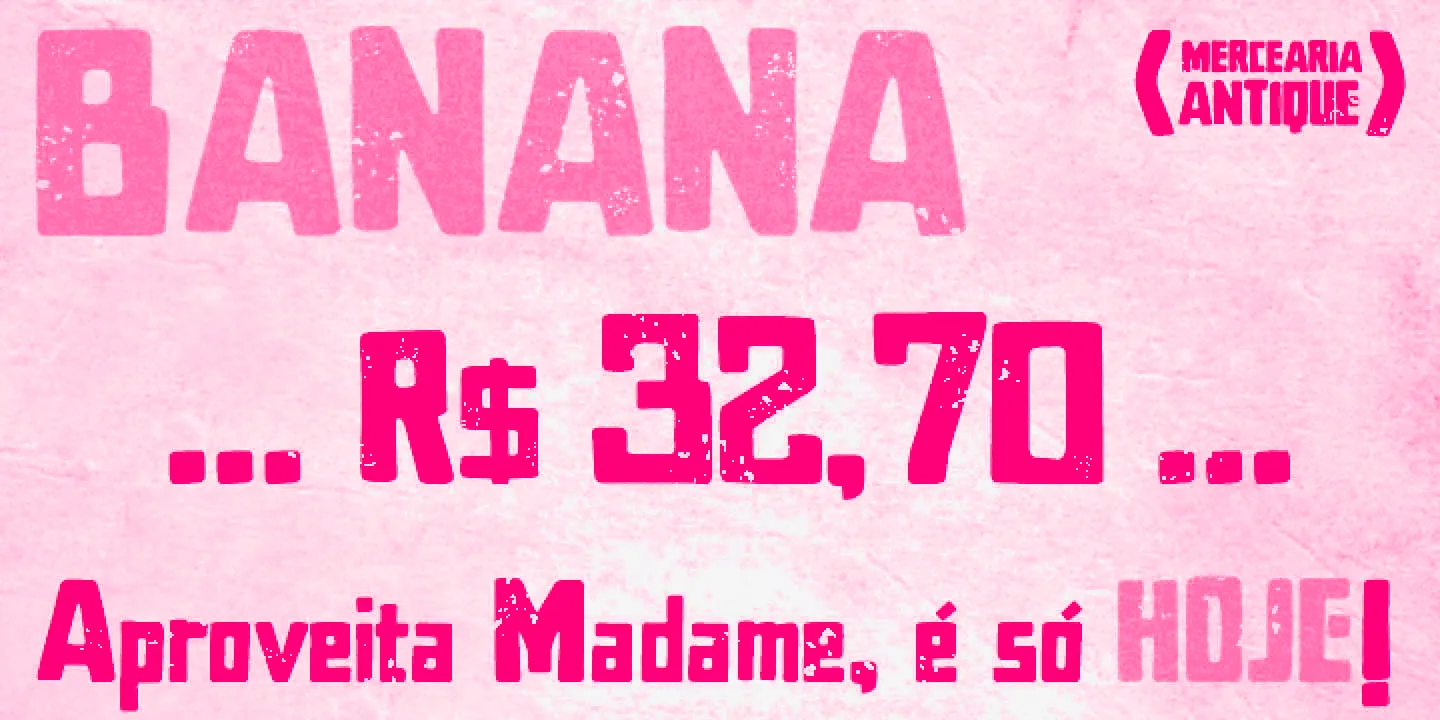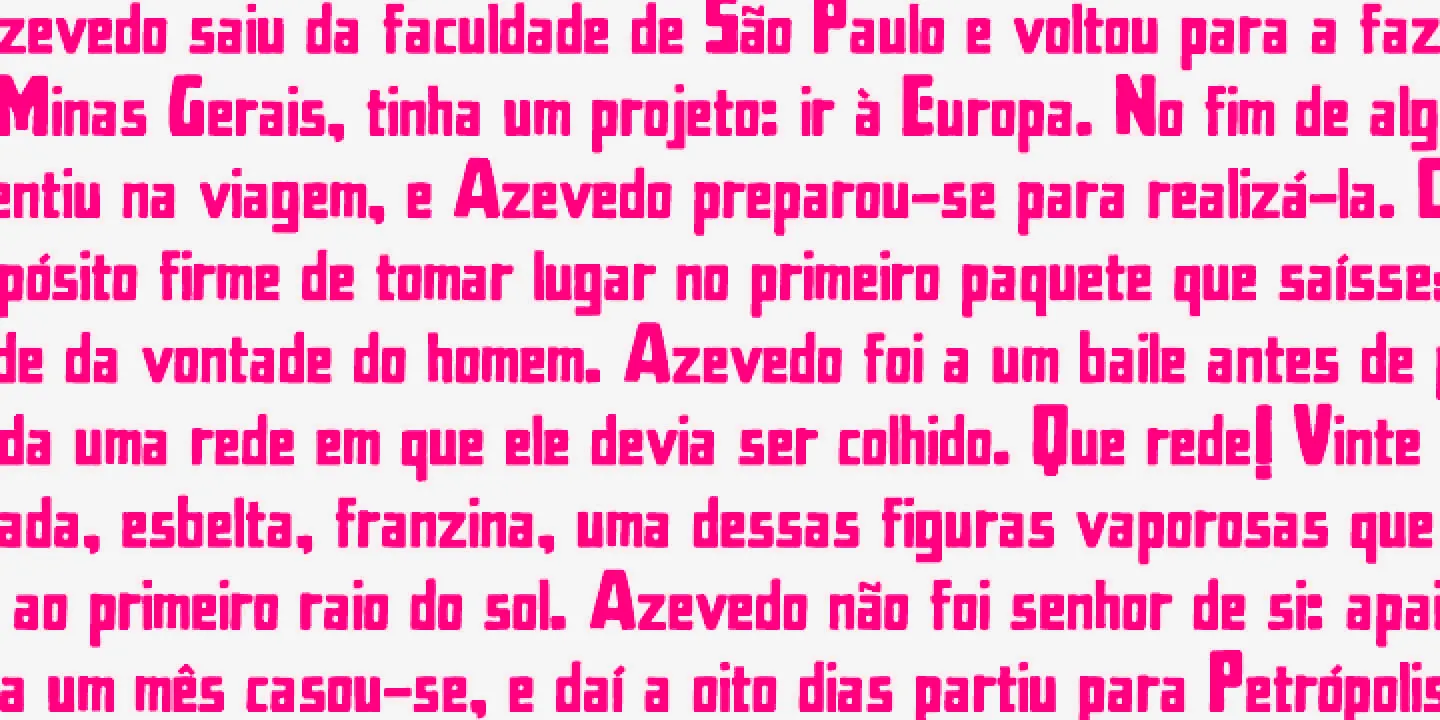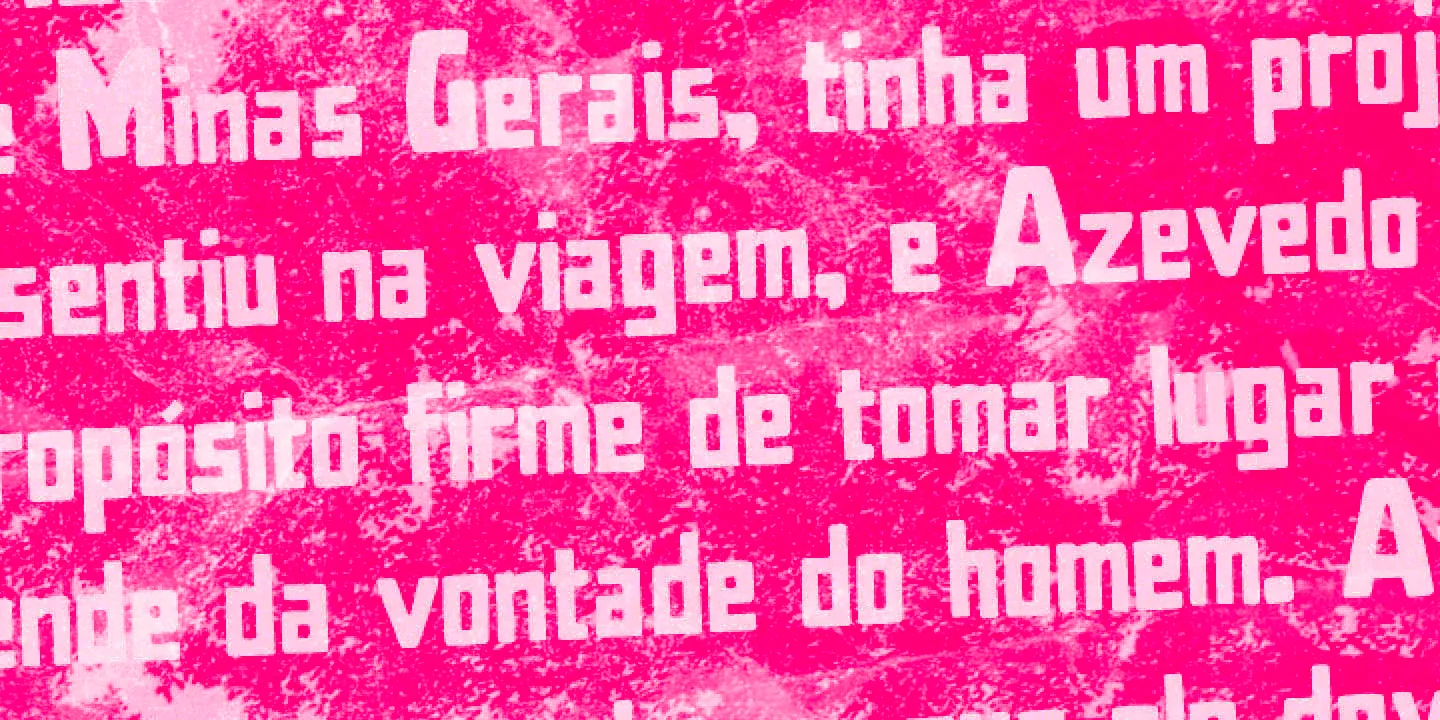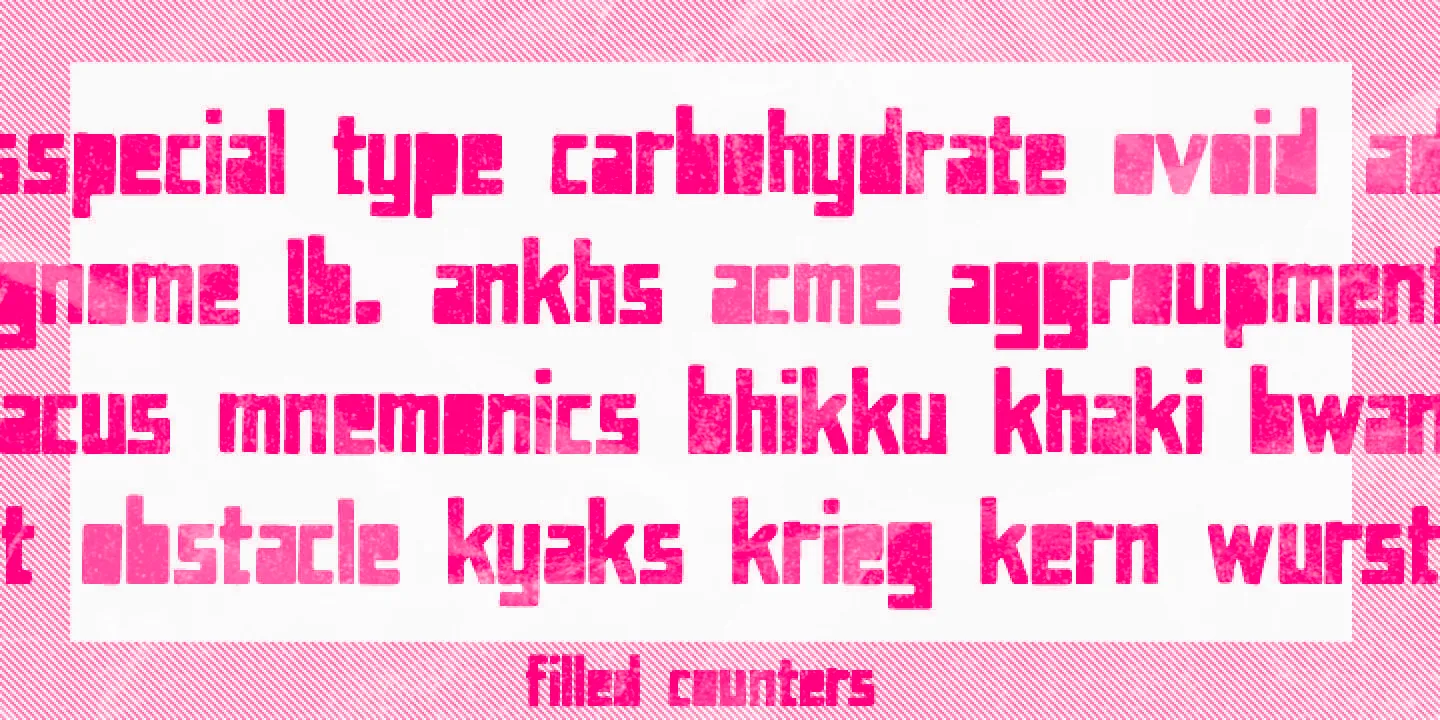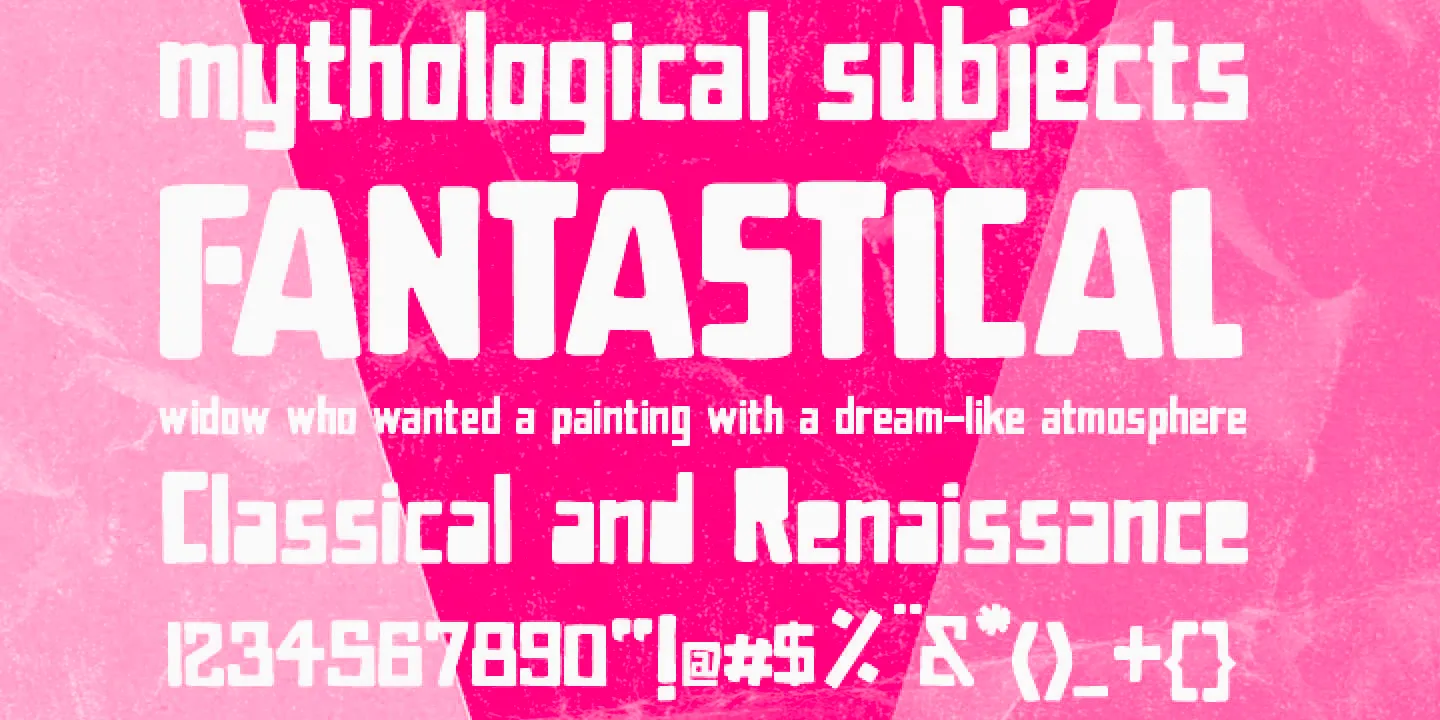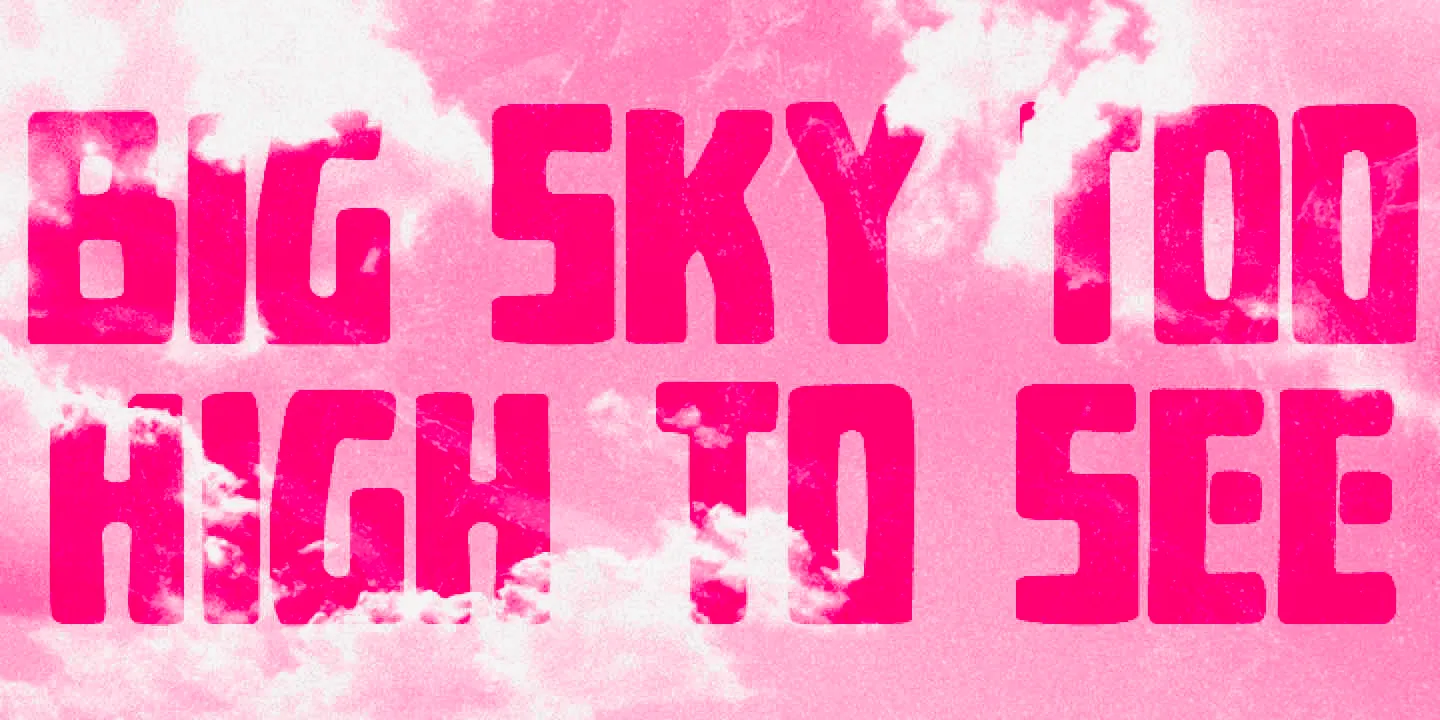
Mercearia Antique Font
Mercearia Antique is an inky, blocky, hand-lettered font based on a 1944 Brazilian book about alphabets and lettering styles. It channels the spirit of hand-crafted typography. Combining squarish letterforms with soft edges gives designers a typeface suited for projects needing a hand-finished feel. With its mix of charm and craft, it works really well on posters, packaging, branding, and signage, where character and clarity are equally important. Mercearia works like a charm in display sizes!